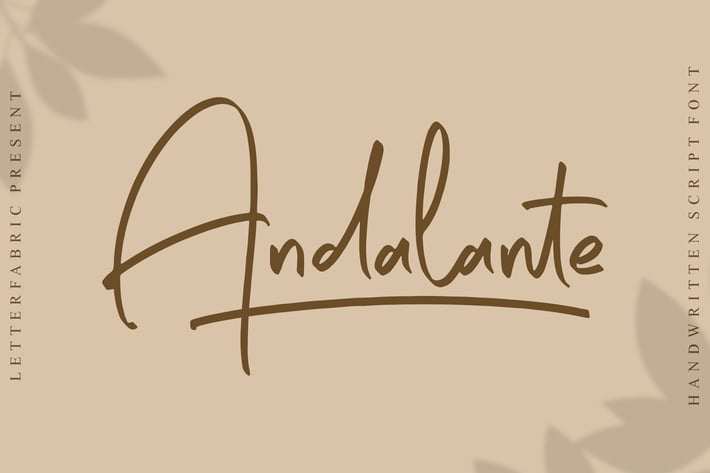
Andalante Handwritten Script Font
Andalante is a relaxed handwritten script with breezy strokes and a warm, natural flow. Subtle texture and roomy curves make it feel friendly yet refined, so headlines pop without shouting and small text stays clean. Use it anywhere you want personality with polish—brand marks, quotes, packaging, and everyday social graphics.
+ Uppercase, lowercase, numerals & punctuation
+ Smooth spacing and refined kerning for tidy results
+ Useful alternates/ligatures (where supported) for organic rhythm
+ Logos & submarks
+ Branding suites
+ Social media posts & quotes
+ Invitations & stationery
+ Posters & flyers
+ Packaging, labels & stickers
+ Menus & café signage
+ Blog headers & thumbnails
+ Apparel prints & merch
+ Greeting cards
Let easygoing handwriting bring warm character to every design.